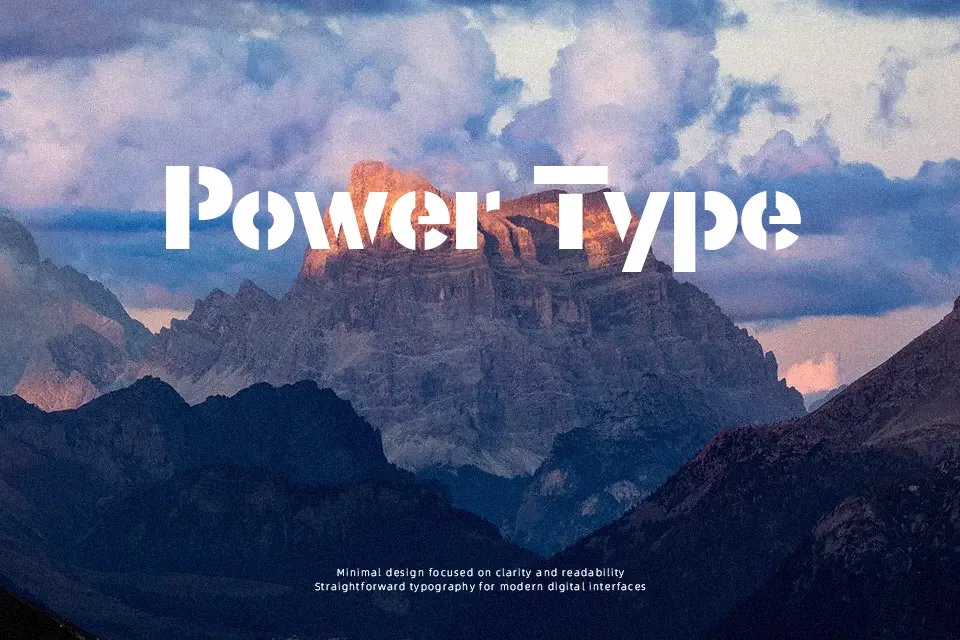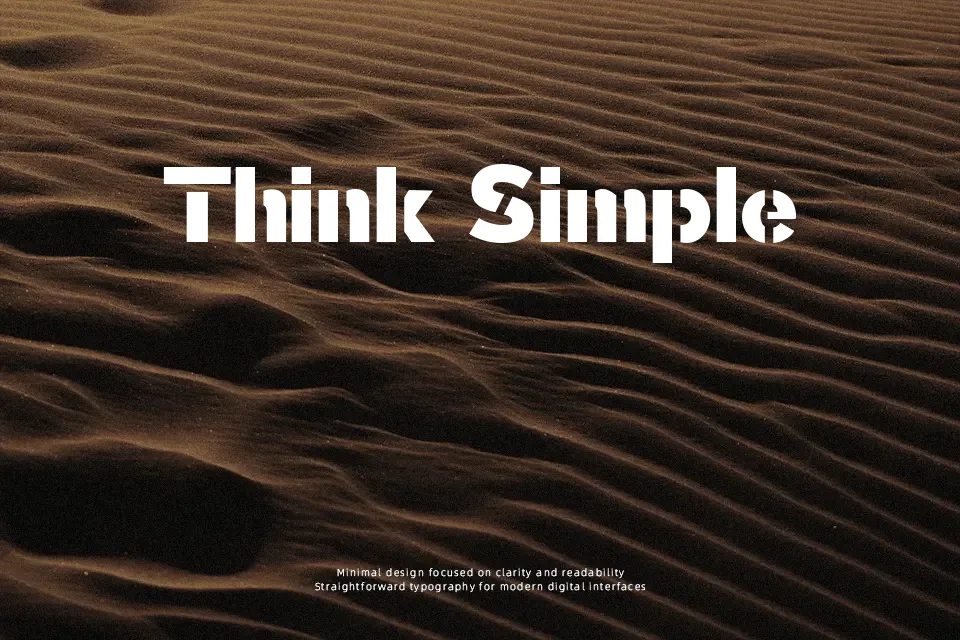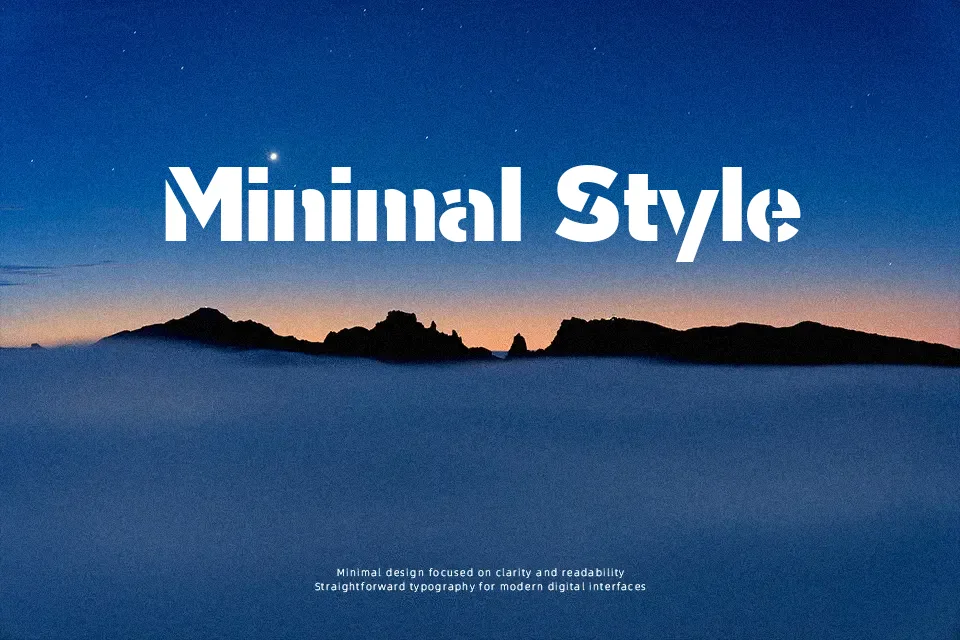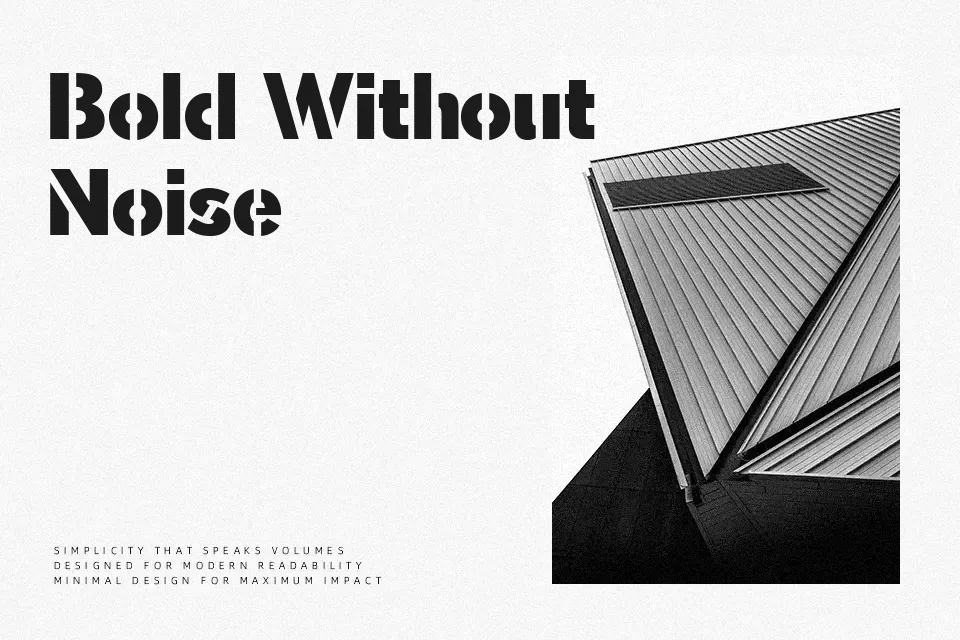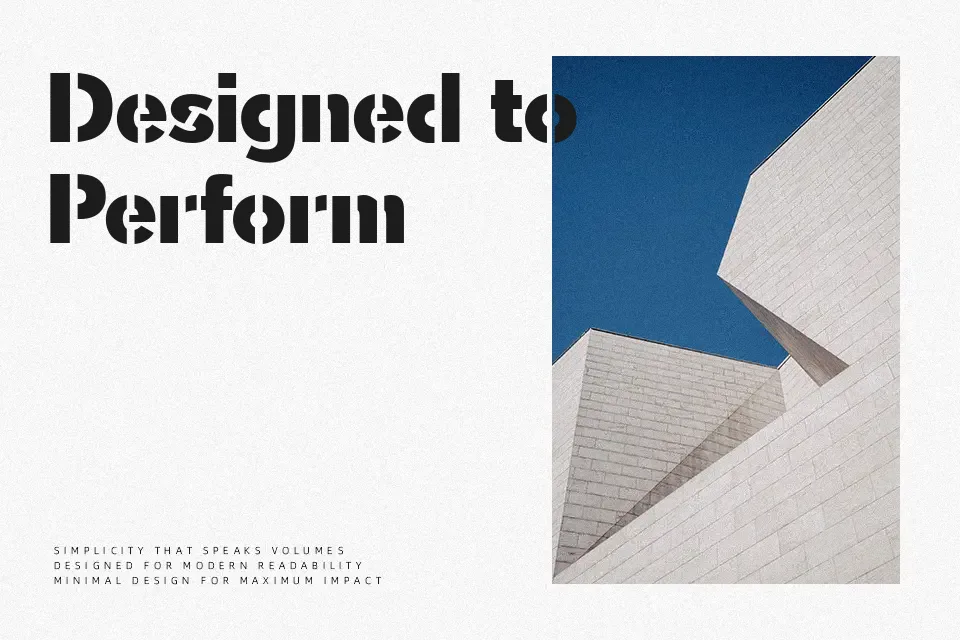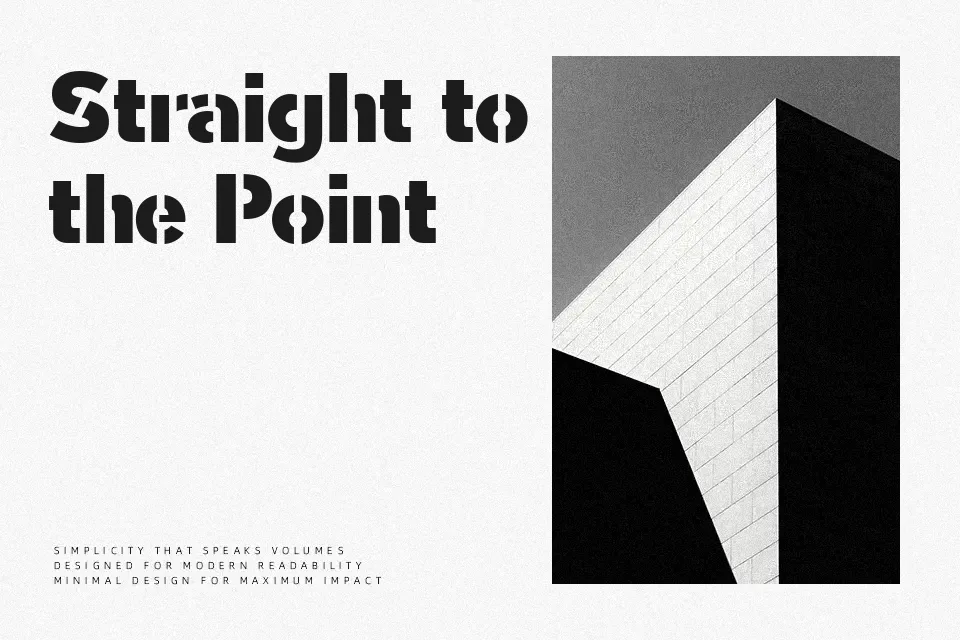
Sargento Gorila Font
Designed by deFharo
Sargento Gorila Font commands immediate visual attention through solid geometric structures and deliberate cutout segments that define its industrial stencil construction. The characters exhibit uniform heavy stroke weight, wide rectangular proportions, and moderate spacing that preserves legibility across signage and bold headlines. While these robust physical traits deliver excellent impact in large-scale prints and activewear graphics, the dense shapes severely restrict comfort in continuous body copy. Smaller editorial settings or captions cause the stencil breaks to close up visually, making this design best suited strictly for prominent display treatments.
Best For: military-themed poster designs, athletic apparel graphics, tactical gear packaging, video game title screens
Not Ideal For: continuous body text, mobile interface body copy, dense editorial layouts, formal corporate documents
Perfect for gaming, headline, and logo, with a bold and display style.